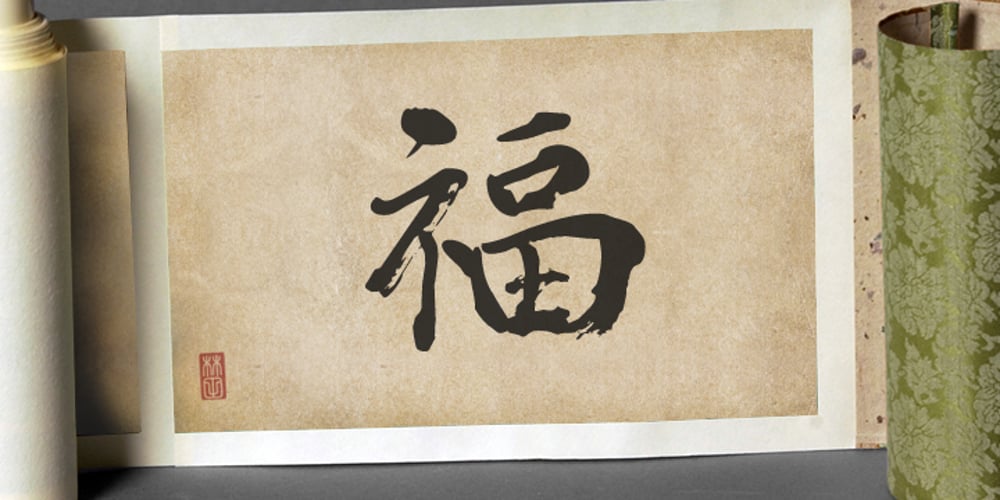
Asian Scroll Font Family was designed by Natsuko Hayashida and published by Okaycat. Asian Scroll contains 2 styles and family package options. Asian Scroll contains many kanji symbols laid out in the regular English keyboard layout for easy access to these special characters. In your capitals, you’ll see each symbol here is subtitled with a small English translation indicating the meaning of the symbol. Asian Scroll brings these symbols to you in dry brush and wet. Please see the gallery picture to see which keys are used to access the kanji symbols.